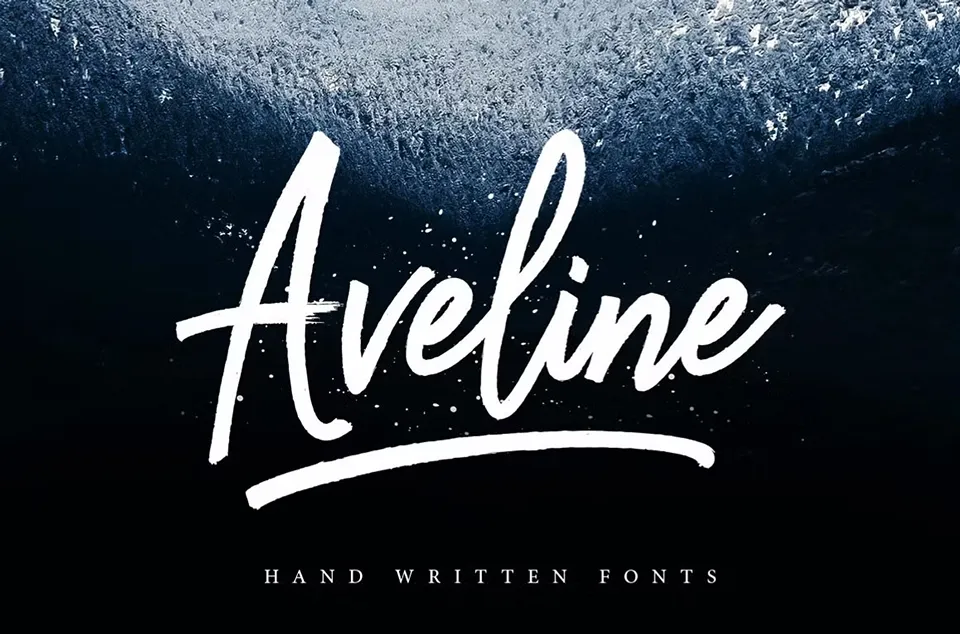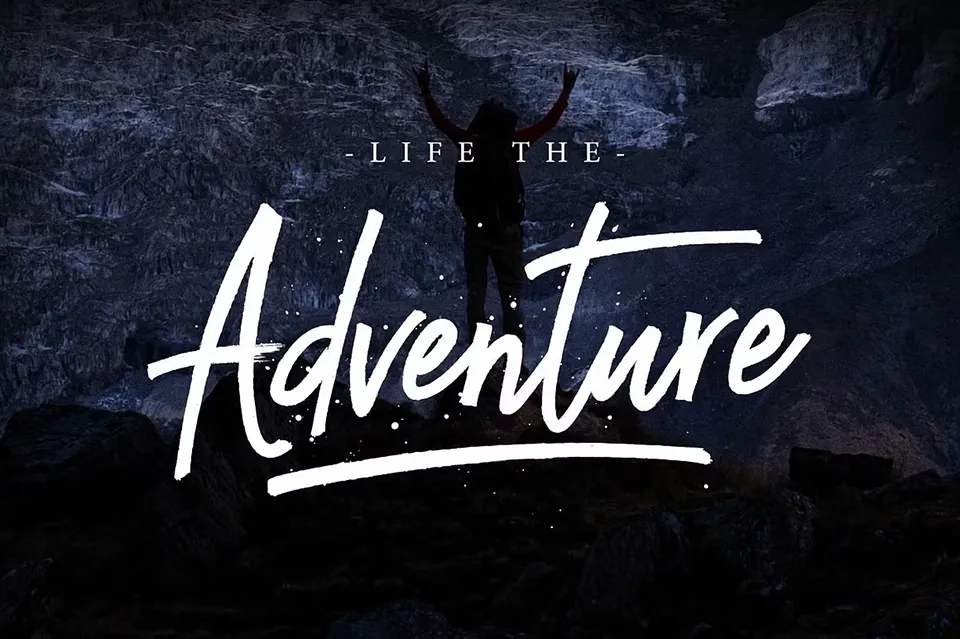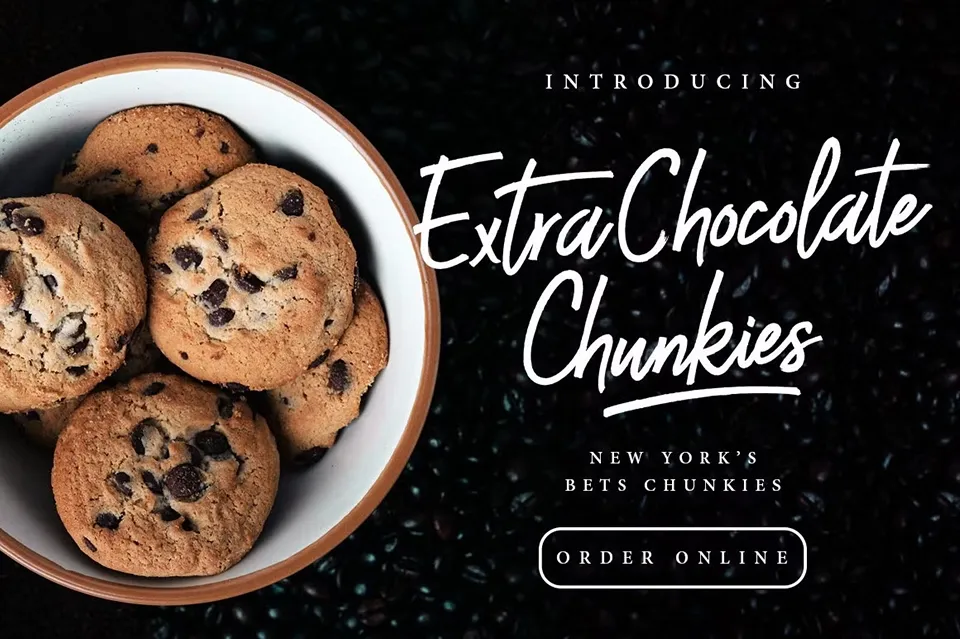
Aveline Script Font
Aveline Script Font is a stylish handwritten script font designed by sizimon. Perfect for logos, name tags, handwritten quotes, product packaging, merchandise, social media, and greeting cards, this font brings a modern and elegant touch to any design. It features a complete set of upper and lowercase letters, punctuation, numerals, and multilingual support, making it versatile and easy to use for a variety of creative projects.